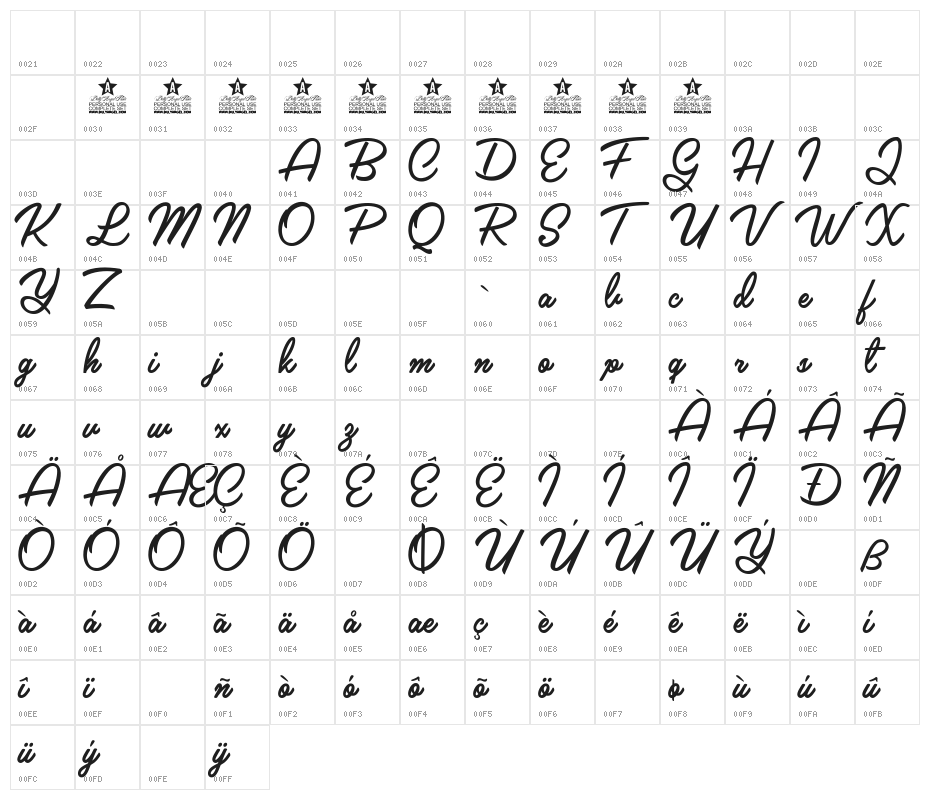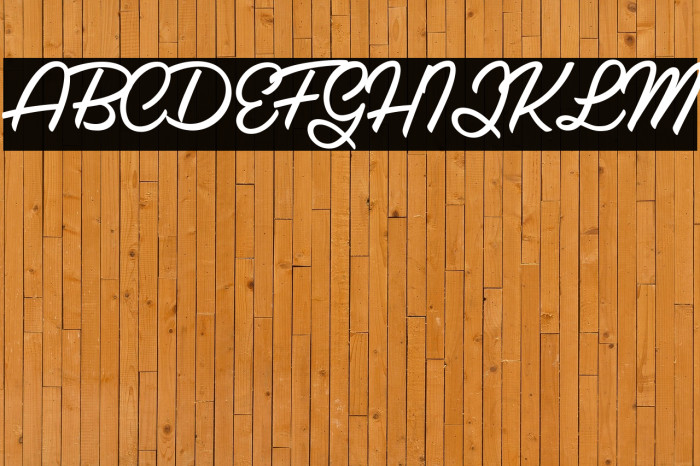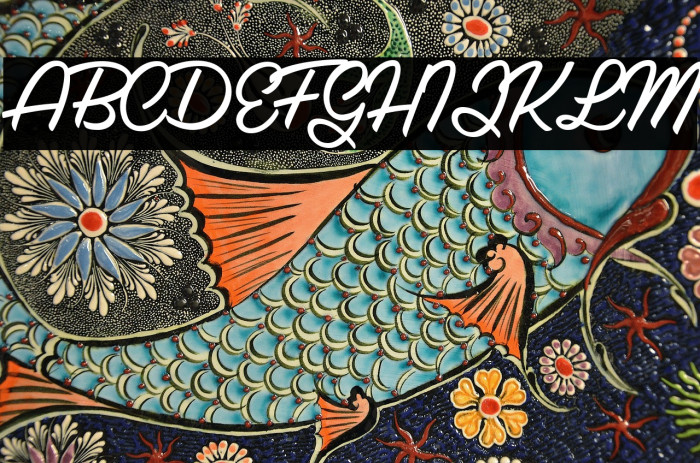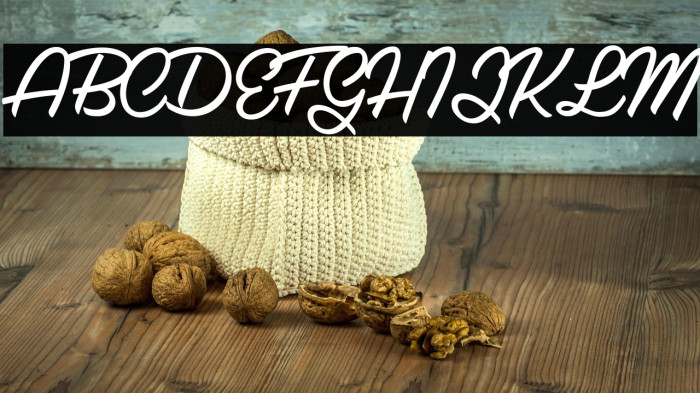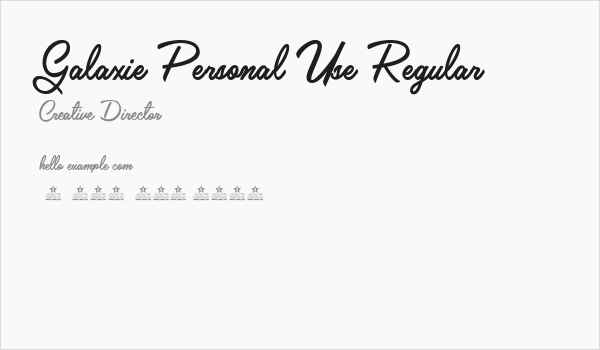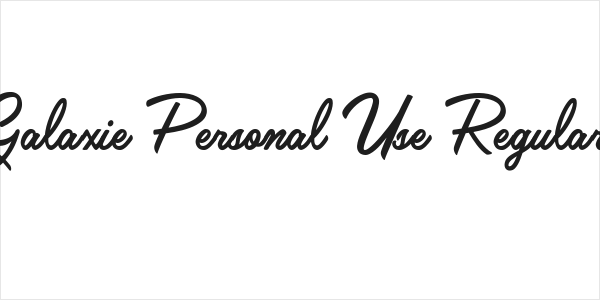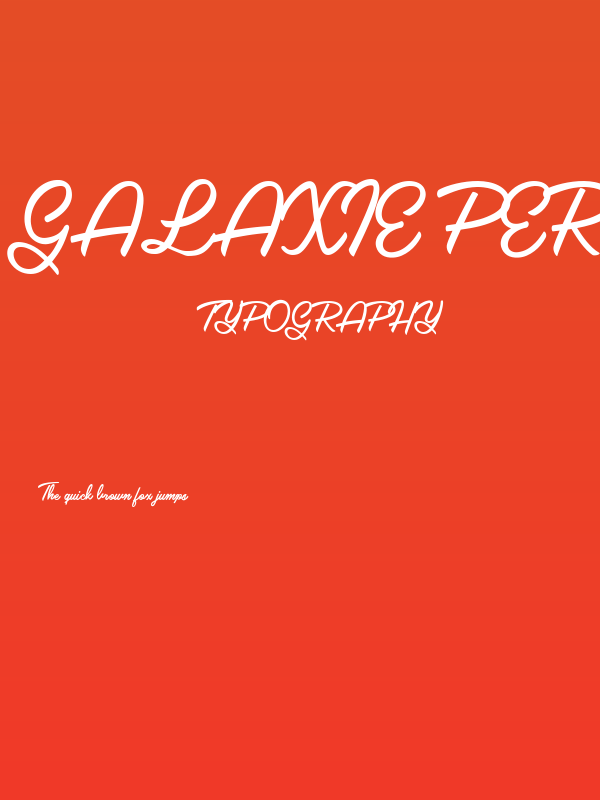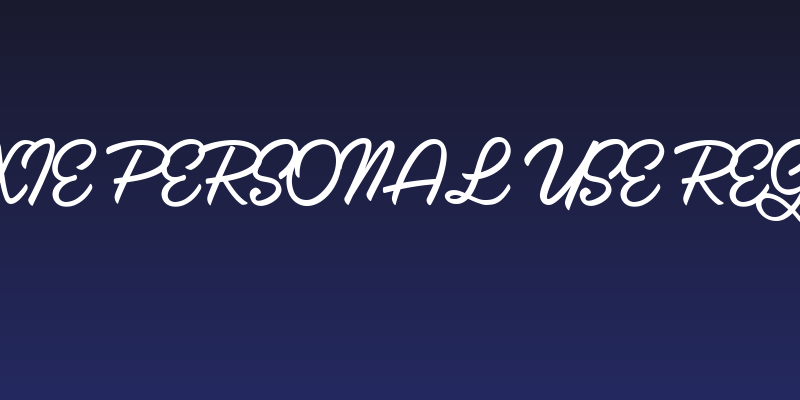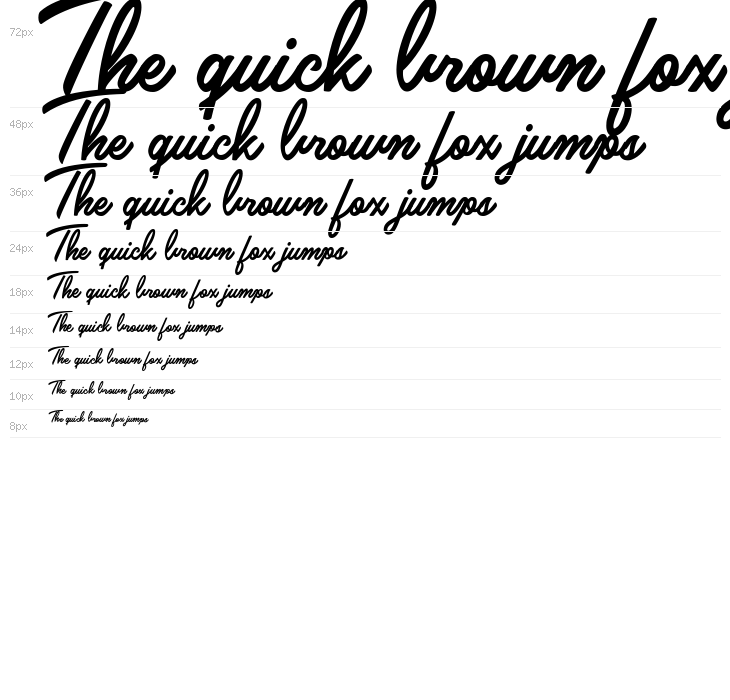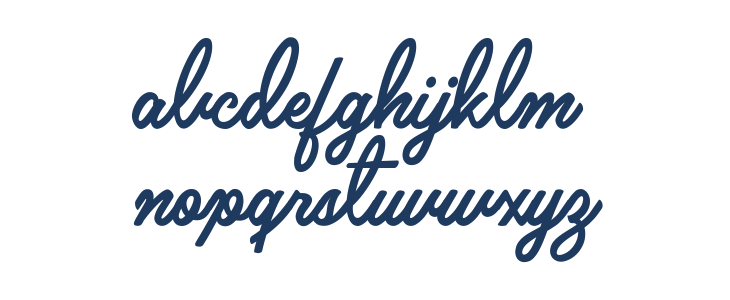
Galaxie Personal Use Regular Font
Galaxie Personal Use Regular Description
This font features a dynamic and flowing script style, characterized by its elegant cursive letters that connect seamlessly. The uppercase letters exhibit a graceful, sweeping motion, while the lowercase letters maintain a consistent flow with slightly exaggerated loops and curves. The font's overall appearance is both sophisticated and approachable, making it suitable for a variety of design contexts. The characters are well-balanced, with a moderate stroke width that provides good readability without sacrificing style.